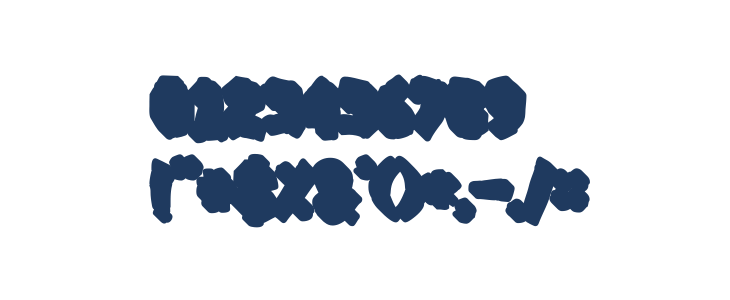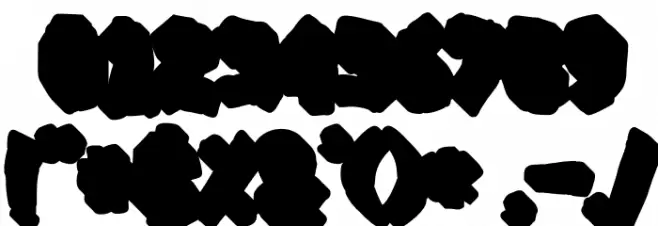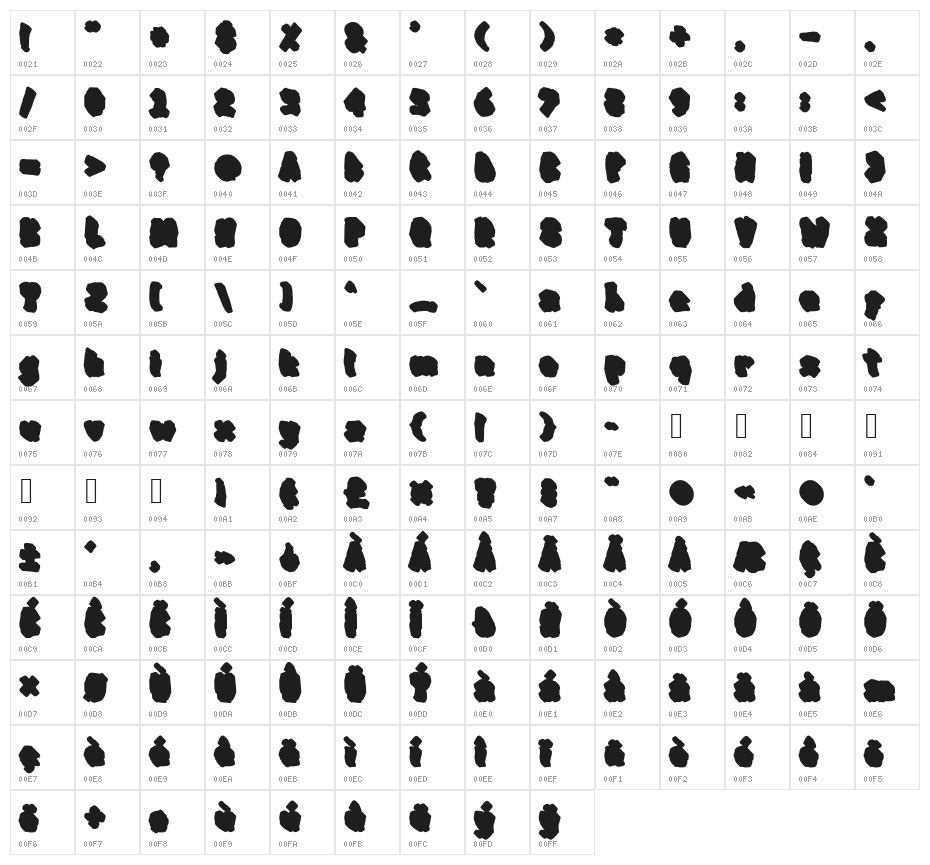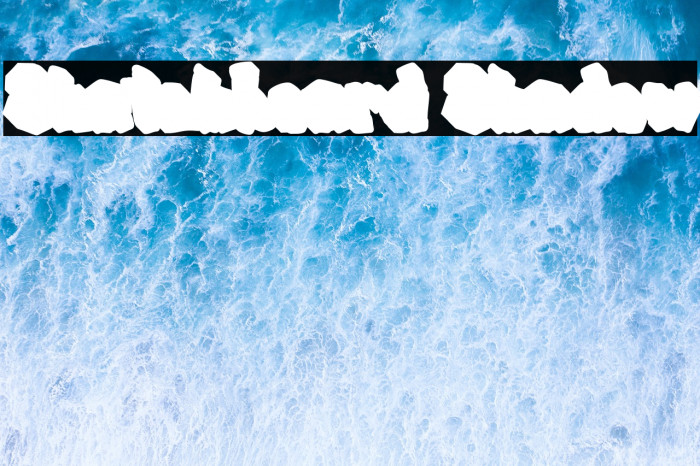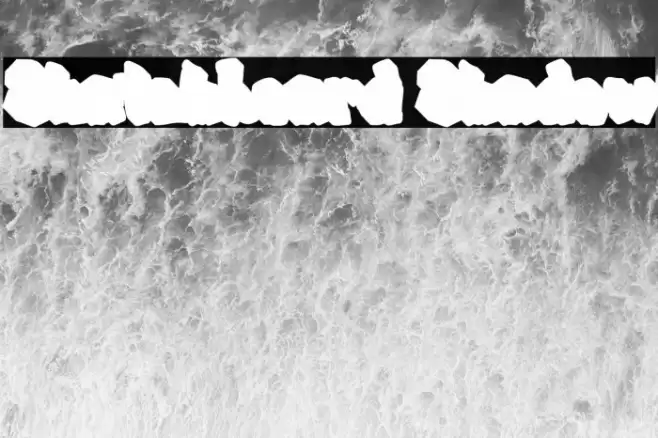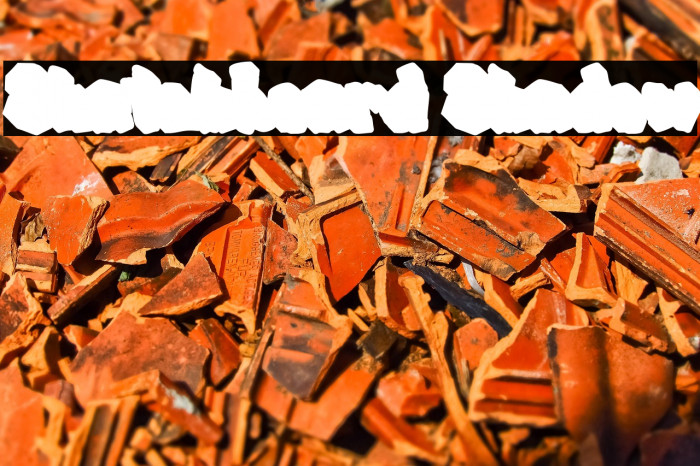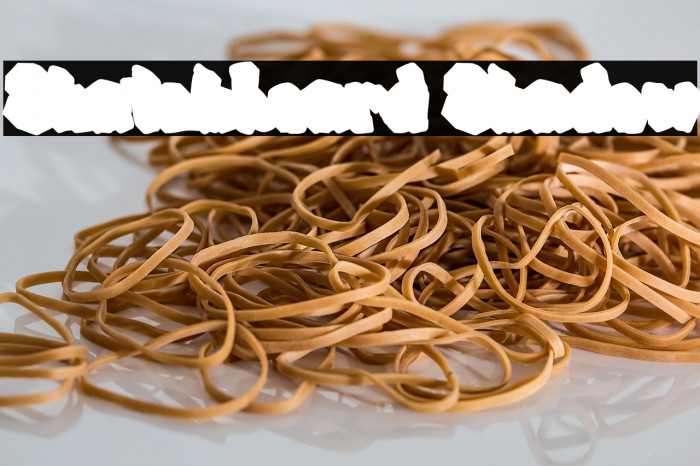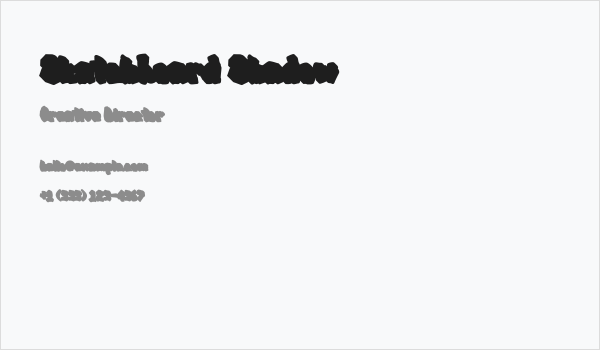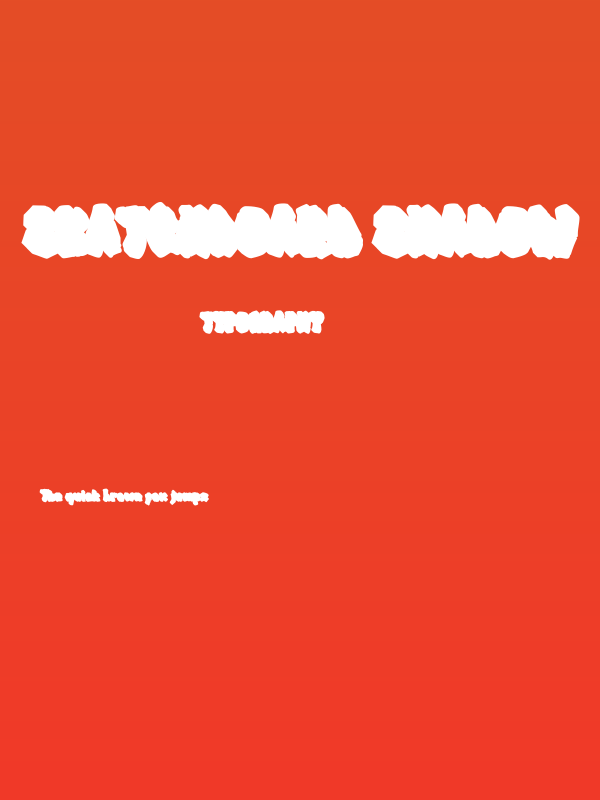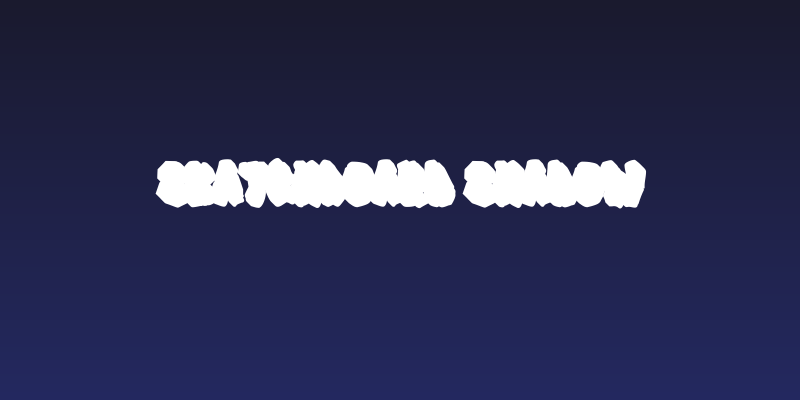
Skatchboard Shadow Font
Skatchboard Shadow Description
This font features a bold, shadowed style with a playful and artistic flair. The characters are heavily stylized, with thick strokes and a three-dimensional appearance that gives a sense of depth. The shadow effect adds a dynamic and eye-catching element, making it ideal for creative projects. The letters are closely spaced, contributing to a compact and cohesive look. This font is perfect for designs that require a strong visual impact and a touch of whimsy.
| Proposed Projects | Ideal for posters, album covers, graffiti art, and any project needing a bold, artistic touch. |